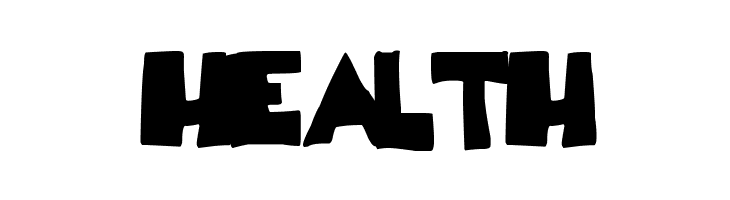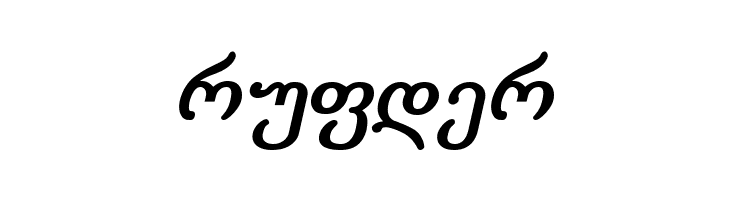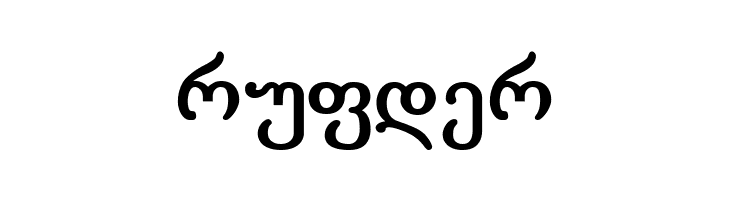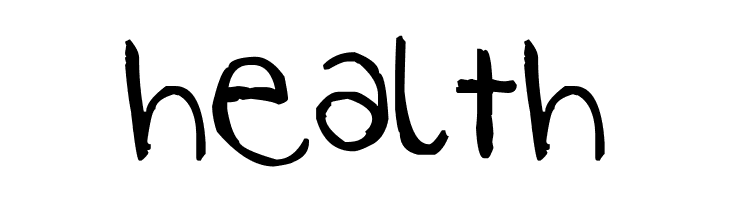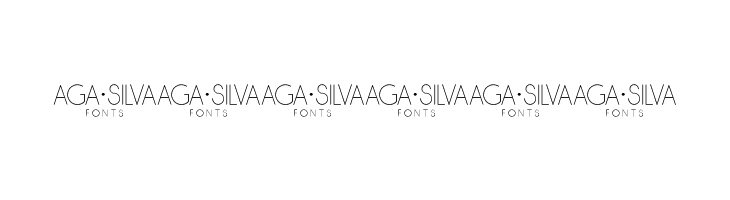
• LilithScript
A playful, handwritten font with bold, irregular strokes and a whimsical style.
• LiliusDEMO
• LilliusDEMO
• Limp Noodle
A playful, bold font with irregular, cartoonish shapes and a whimsical style.
• LineartOne
A decorative font with intricate line art illustrations for each character.
• LineFever
A hand-drawn, sketch-like font with overlapping lines and geometric shapes.
• Liron Script
A bold, angular font with a tribal and geometric style.
• Literaturuly-ITV
• Literaturuly-ITV Bold
• Literaturuly-ITV Bold Italic